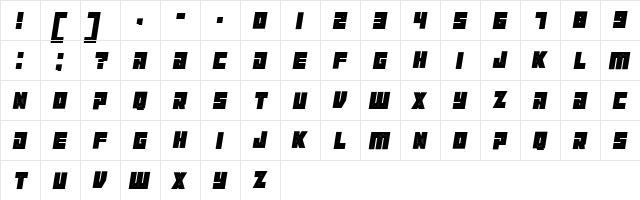
Maniac Grunged Italic
Design Context for Maniac Grunged Typeface
Maniac Grunged embraces imperfection — its rough, textured character adds raw authenticity to designs that want to feel lived-in and unconventional. The slanted form adds forward momentum and visual energy.
A strong fit for alternative music projects, graffiti-adjacent design, and anything that deliberately resists polish.
Pro Tip: Use Maniac Grunged at larger sizes where the texture and irregularity of each letterform can be clearly seen — it loses its character at small sizes.